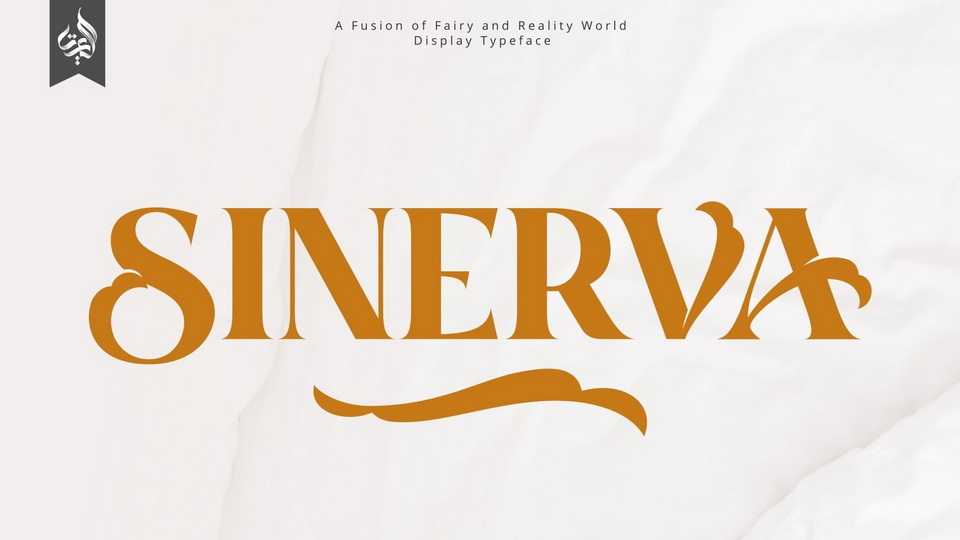
Download Sinerva font, a display serif typeface inspired by Indonesia’s great cultural heritage, Batik. A simple, yet distinctive and elegant, Sinerva font can be applied to many areas of design.
Designer: Aluyeah Studio